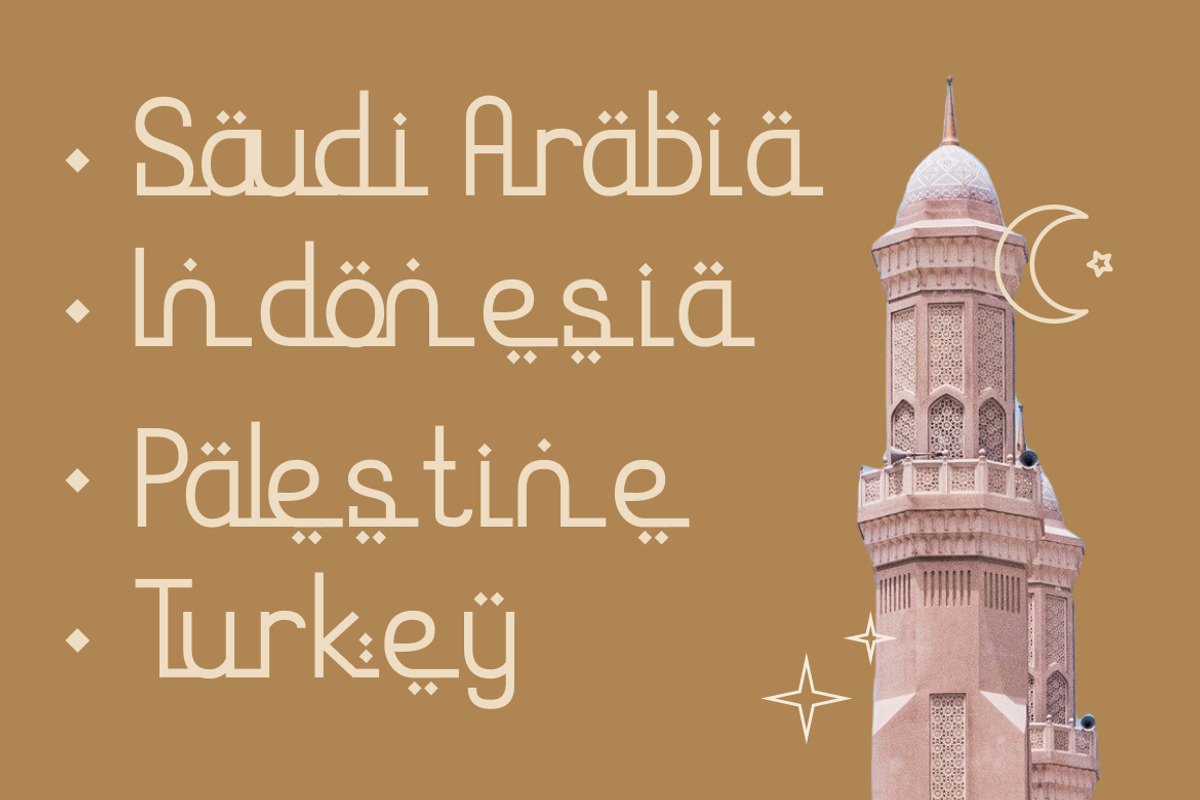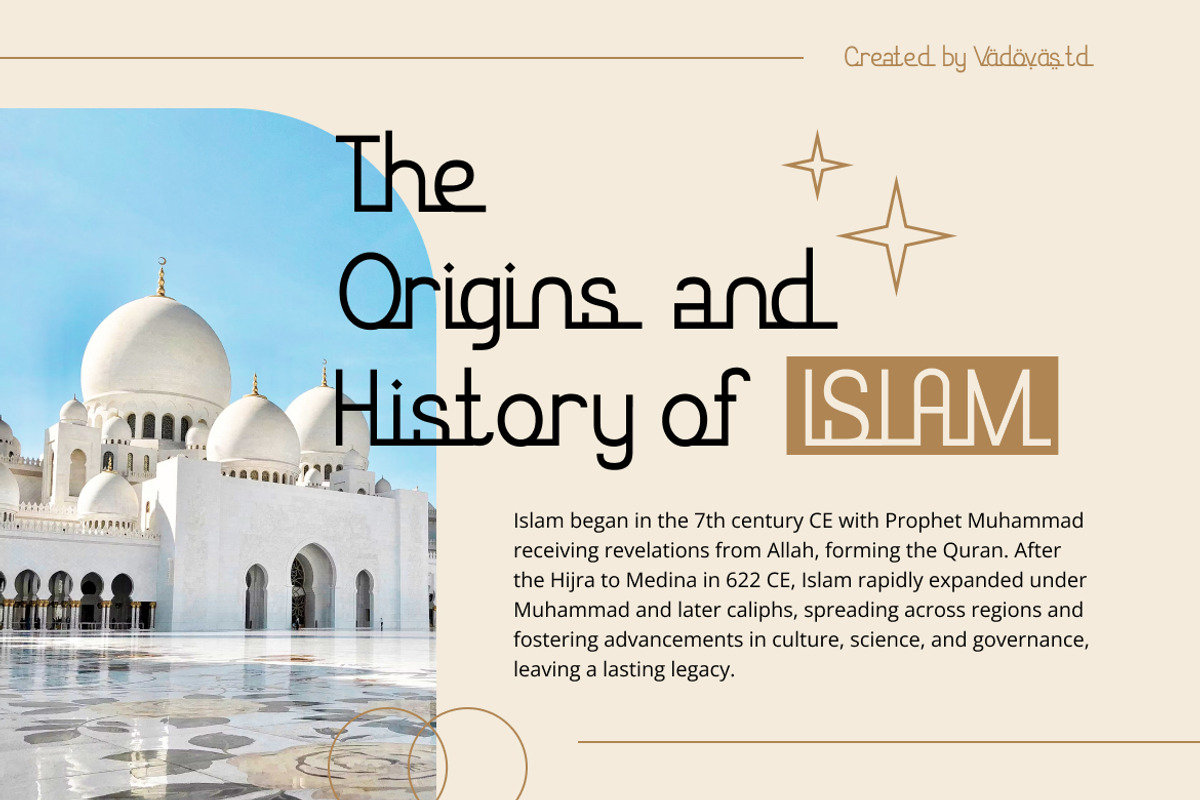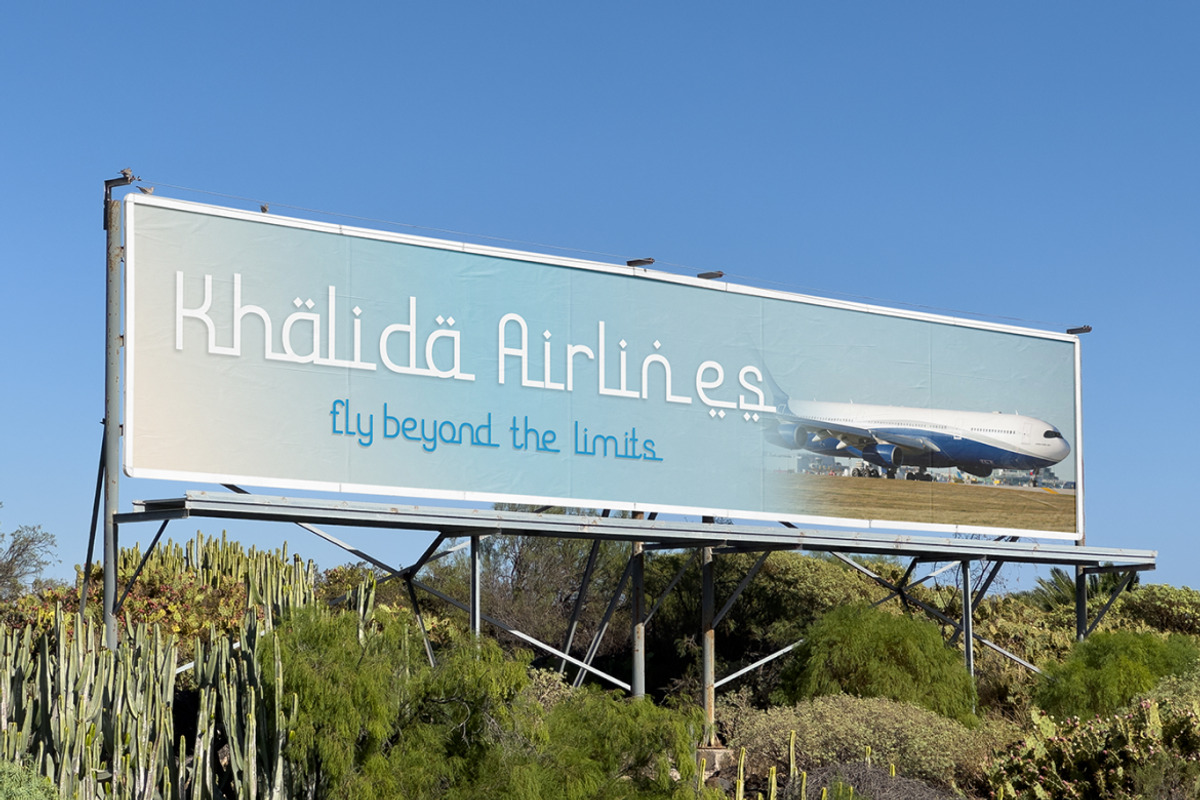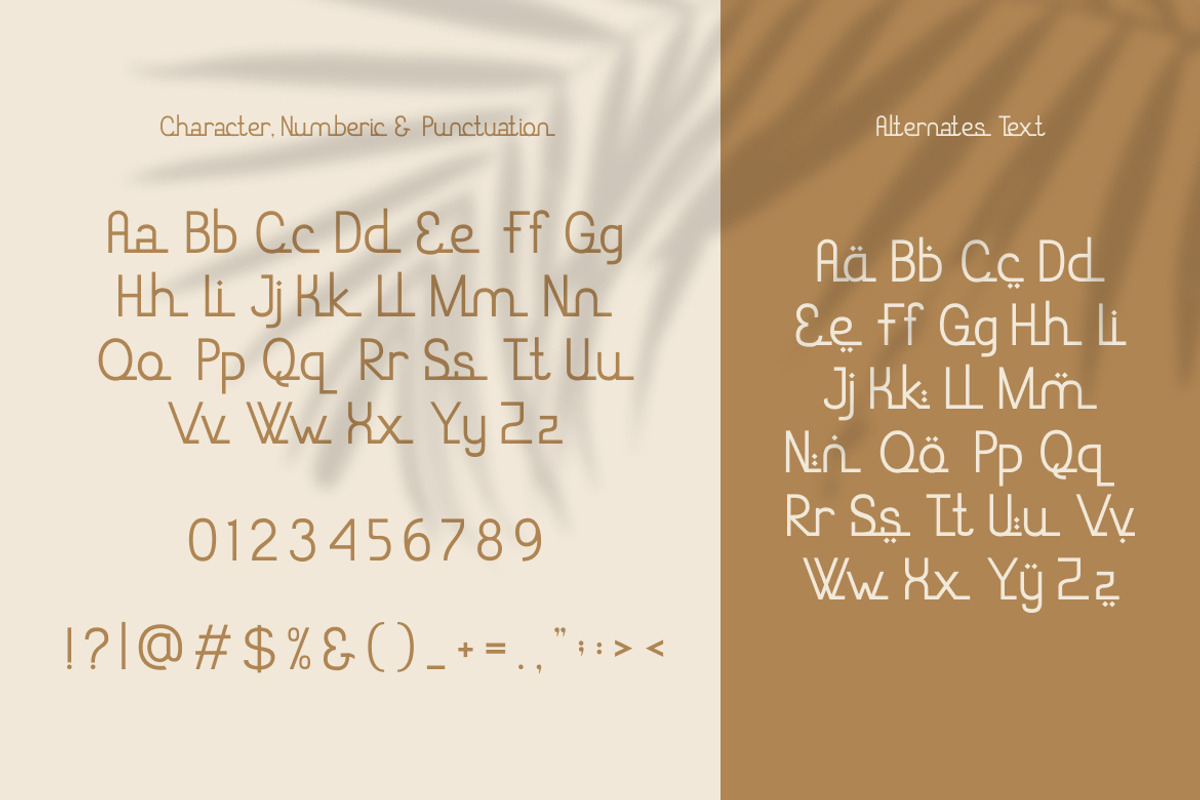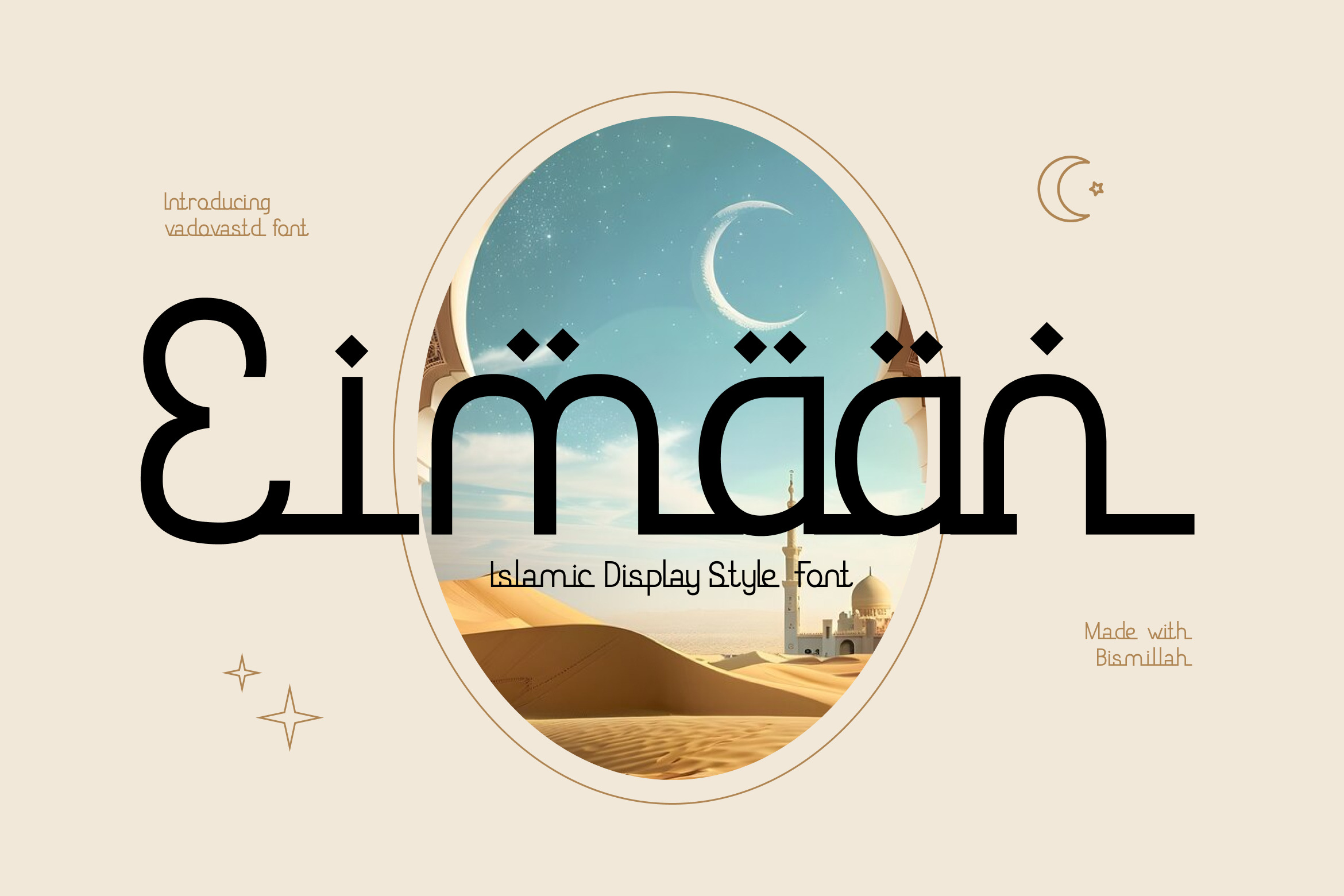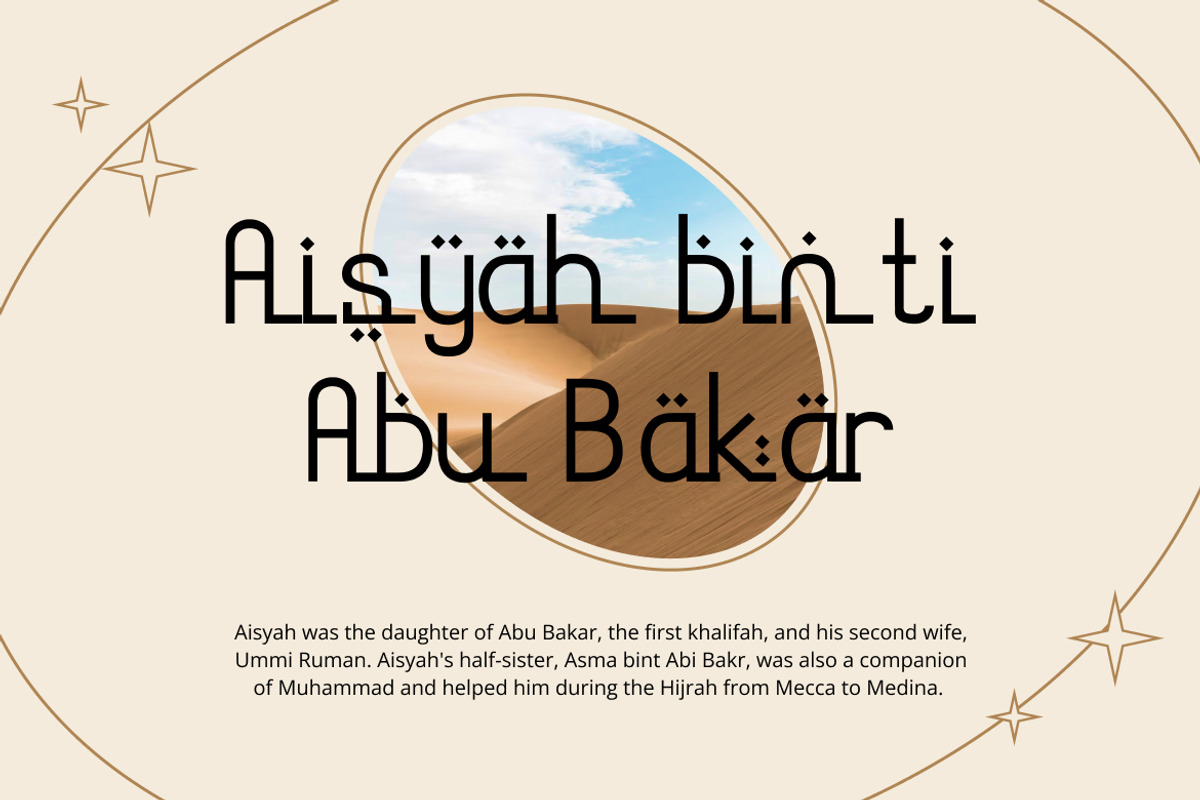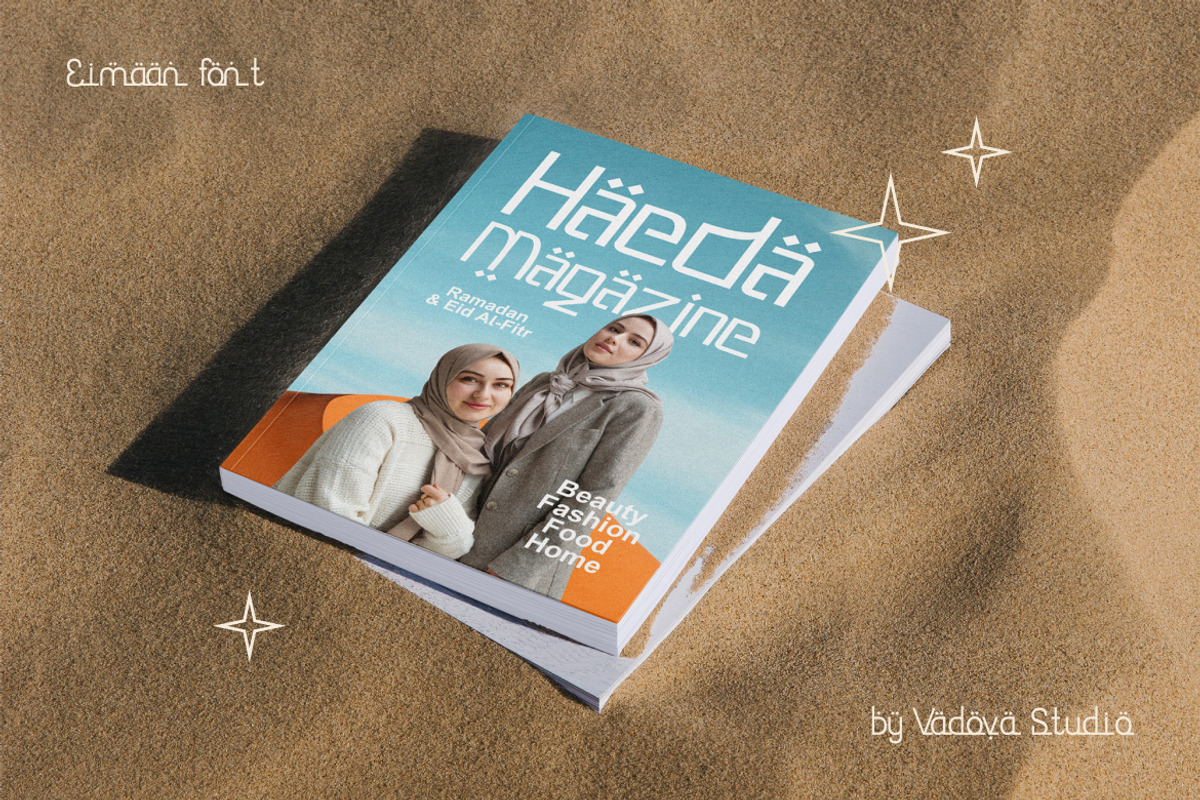
Eimaan – Islamic Display Style Font
Eimaan is a contemporary Islamic display font that blends minimalist geometry with classic Arabic-inspired detailing. Designed to express both elegance and cultural identity, its structured letterforms and ornamental elements make it an ideal choice for creative projects that want to convey faith, sophistication, and modern design values.
The clean layout and bold presence of Eimaan make it perfect for branding, event posters, packaging, and digital designs where cultural influence meets modern visual language.
Font Highlights
Uppercase & lowercase characters
Numerals and punctuation
Multilingual character support
Modern Islamic display style with geometric inspiration
Why Designers Love Eimaan
Cultural Refinement – Merges Islamic motifs with clean contemporary aesthetics.
Elegant & Bold – Ideal for impactful display use in both print and digital media.
Modern Islamic Identity – Embodies faith and modernity in a unique visual form.
Versatile Applications – Works beautifully across branding, editorial, signage, and cultural campaigns.
Best Applications
Islamic festival and event posters
Cultural branding and product packaging
Editorial titles and magazine layouts
Logo design and signage
Religious organization branding
Social media campaigns with Islamic identity
Celebrate faith and modern design in harmony — choose Eimaan to create impactful, culturally rich typography.